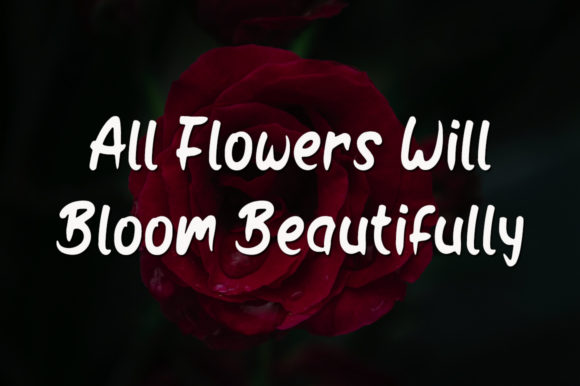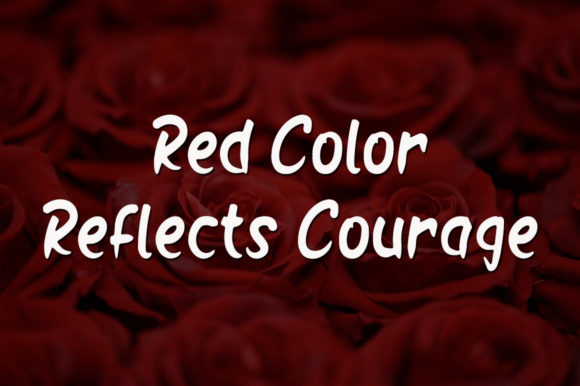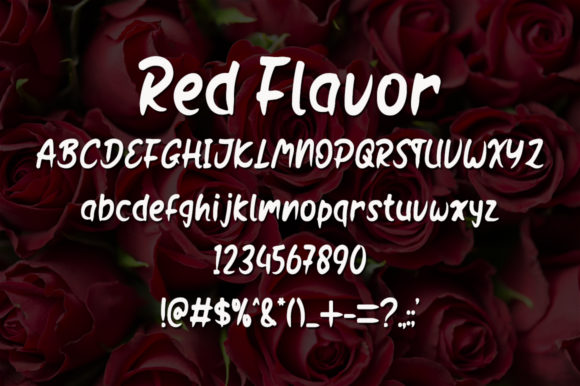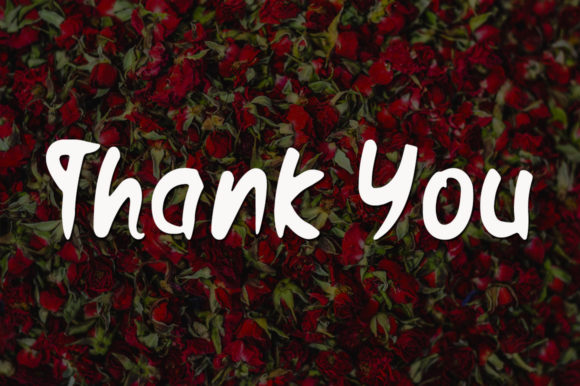
Introduction to Red Flavor Font
Red Flavor is a flowing and thick lettered handwritten font.
Fall in love with its incredibly versatile style and use it to create spectacular designs .
Key Features of Red Flavor Font
Why Choose Red Flavor Font?